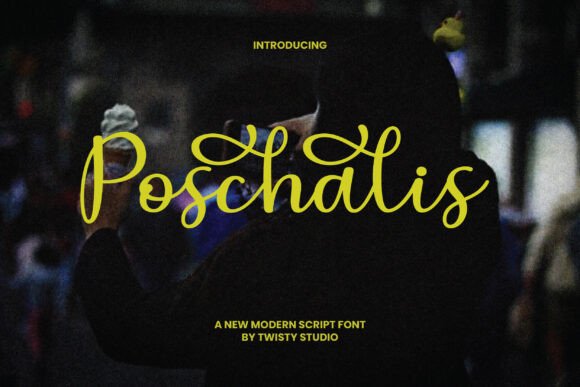
Discover Poschalis: A Graceful Script Font
Imagine a typeface that captures the effortless flow of a handwritten note, yet possesses the polished elegance of a premium font. That’s the charm of Poschalis, a graceful and modern script font designed to infuse every project with warmth and sophistication. Its smooth curves and elegant loops create a handcrafted feel, making it a versatile asset for designers and creators seeking to add a personal, stylish touch to their work.
This creative font excels where personality and readability are key. Its flowing nature makes it a natural choice for projects that aim to feel intimate and authentic. Think beyond basic text; Poschalis shines as a display font for impactful headlines and logos that need to tell a story. For brand identity, it helps craft a memorable image for boutique businesses, lifestyle blogs, or artisanal products, conveying a sense of care and craftsmanship.
Creative Applications and Use Cases
The practical uses for a typeface like Poschalis are vast. Its elegant style supports a wide range of design needs, making it a valuable addition to your design assets. Consider it for:
- Wedding & Event Invitations: Sets a romantic and sophisticated tone for stationery suites.
- Logo Design & Branding: Creates a distinctive and approachable mark for lifestyle and service-based brands.
- Social Media Graphics: Adds a personal, eye-catching element to quotes, announcements, and promotional posts.
- Packaging & Labels: Enhances the perceived quality of product packaging for cosmetics, foods, and gifts.
- Editorial & Poster Design: Provides beautiful, flowing typography for magazine layouts, book covers, and event posters.
When integrating a script font like Poschalis, thoughtful font pairing is essential. It typically pairs beautifully with a clean sans serif font for body text, ensuring overall readability while allowing the script to take center stage in headlines. Always test the font in context—view it at the size it will be used to ensure the elegant loops remain clear and legible, especially for smaller applications or web design.
The right modern typography choice does more than just look good—it reinforces visual consistency and strengthens brand recognition. A well-selected typeface like Poschalis can elevate a design from ordinary to professional, making your communications feel more polished and intentional. By considering the mood of your project and testing how the font interacts with your other design elements, you can harness its full potential to create something truly memorable.